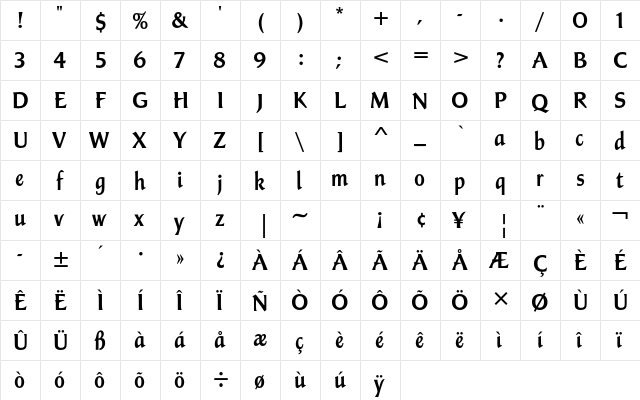
Champers Std Regular
| Designer | Alan Meeks |
Design Context for Champers Std Typeface
Champers Std offers clean, dependable letterforms without strong stylistic allegiance, making it a practical choice for designers who need flexibility.